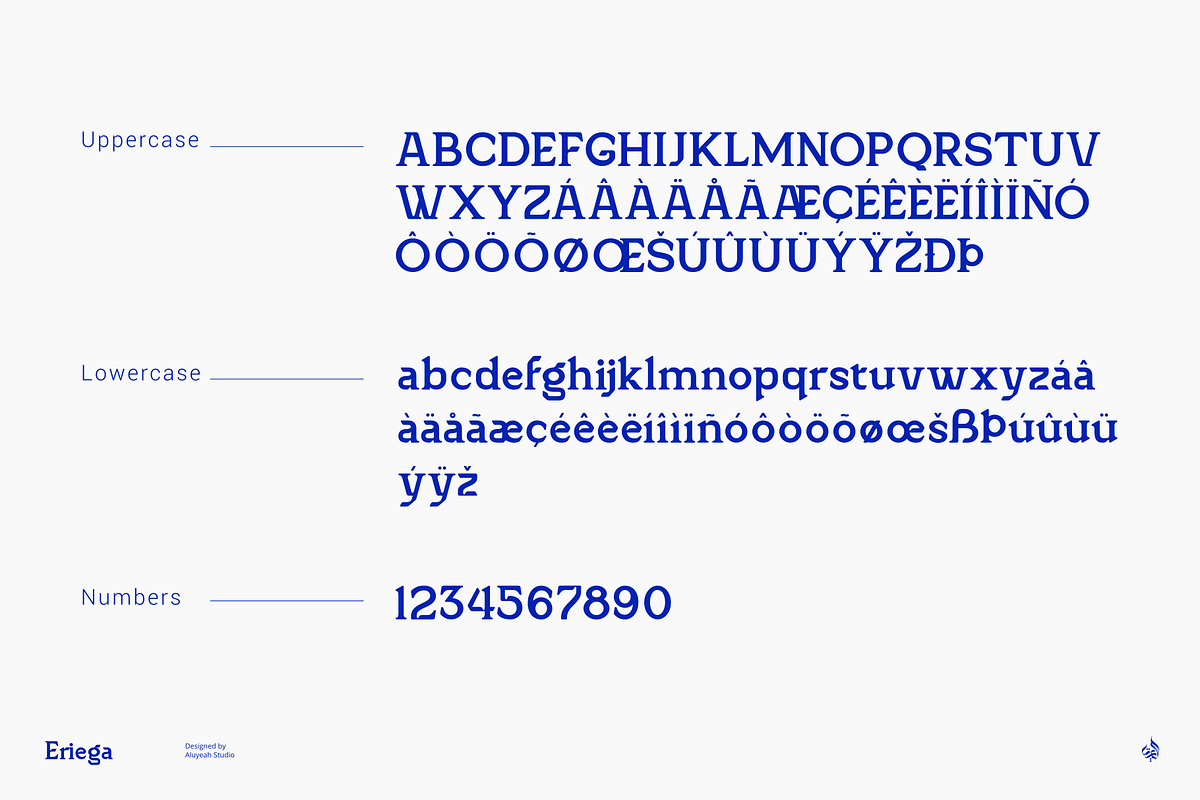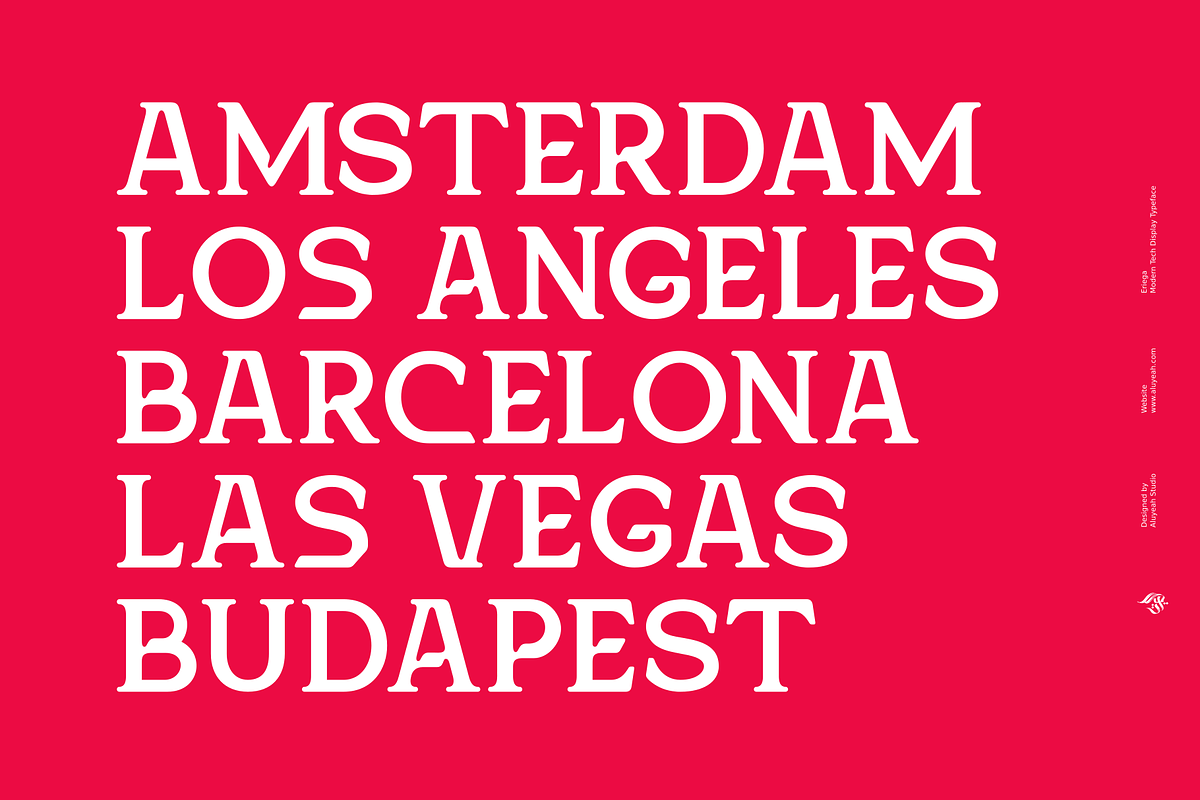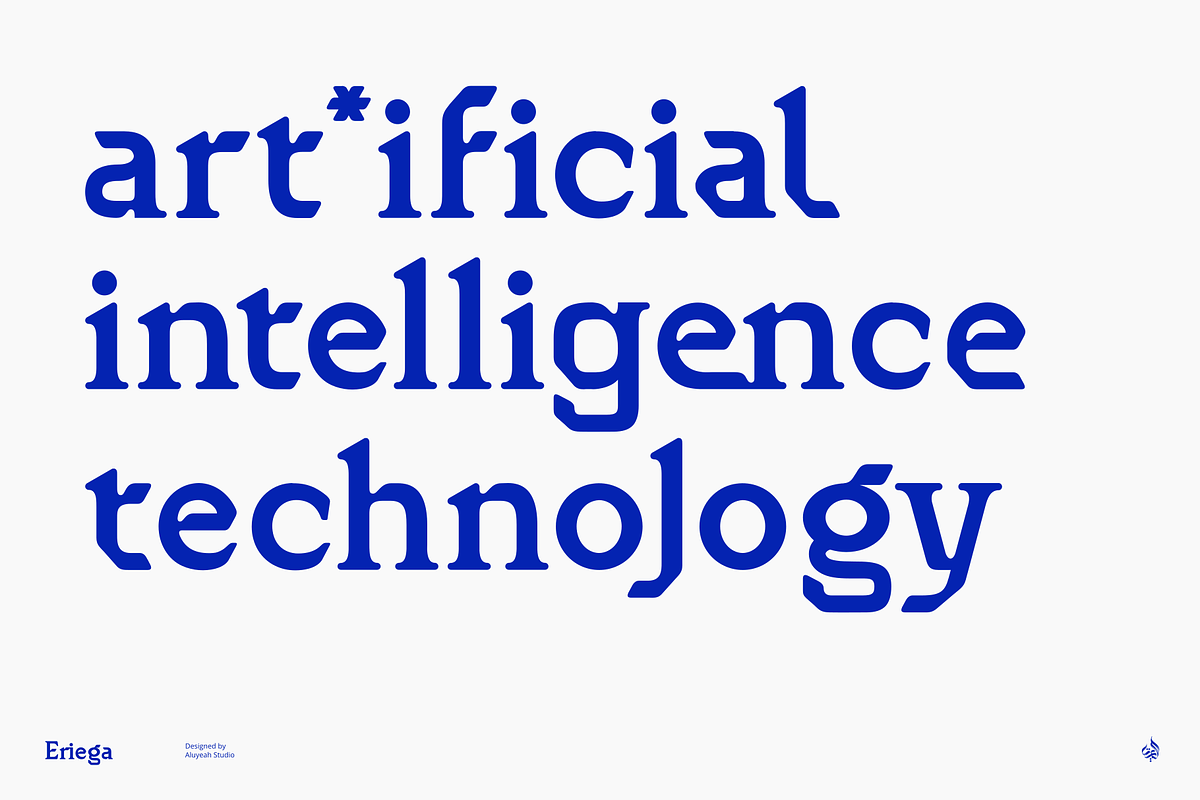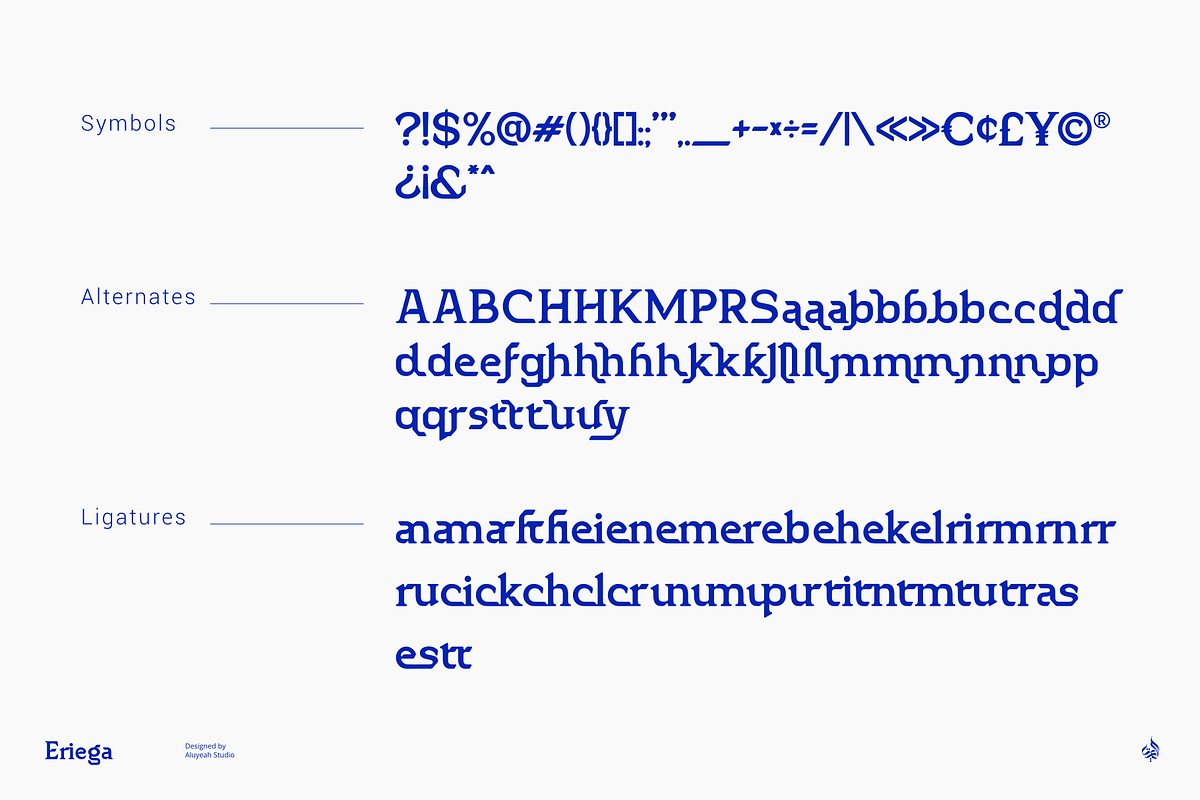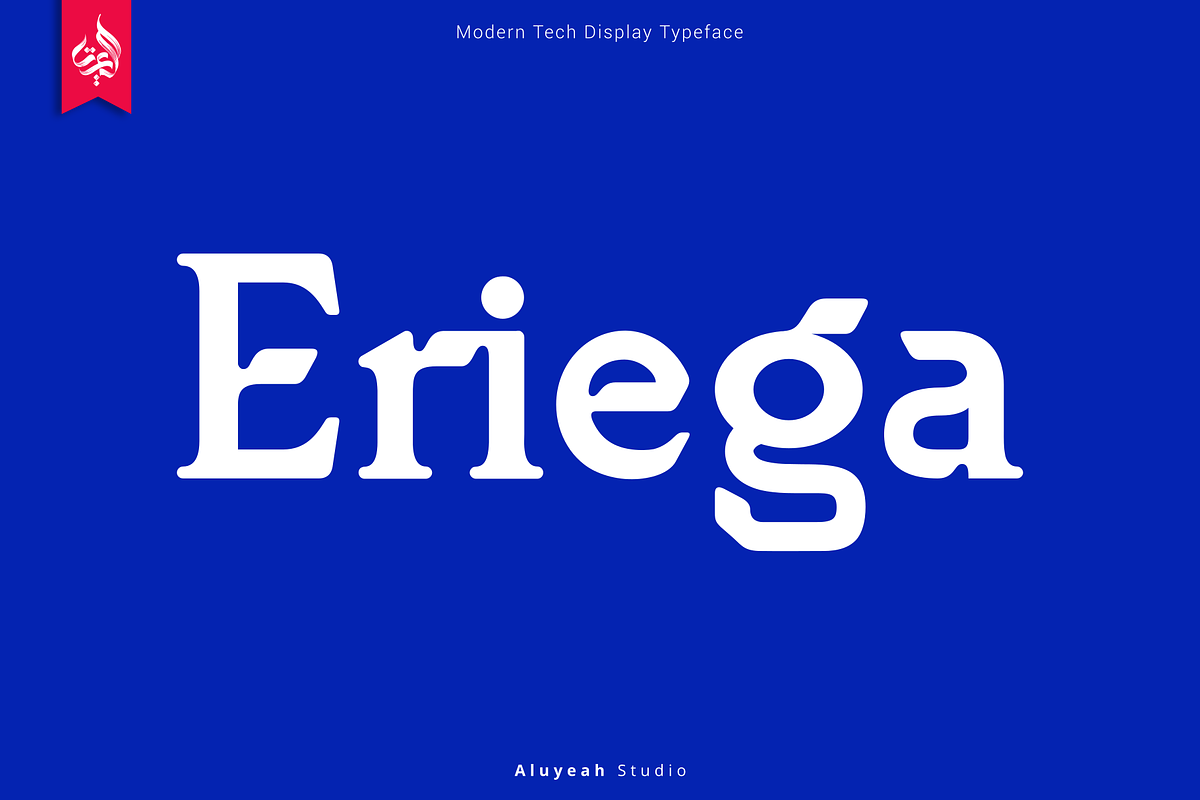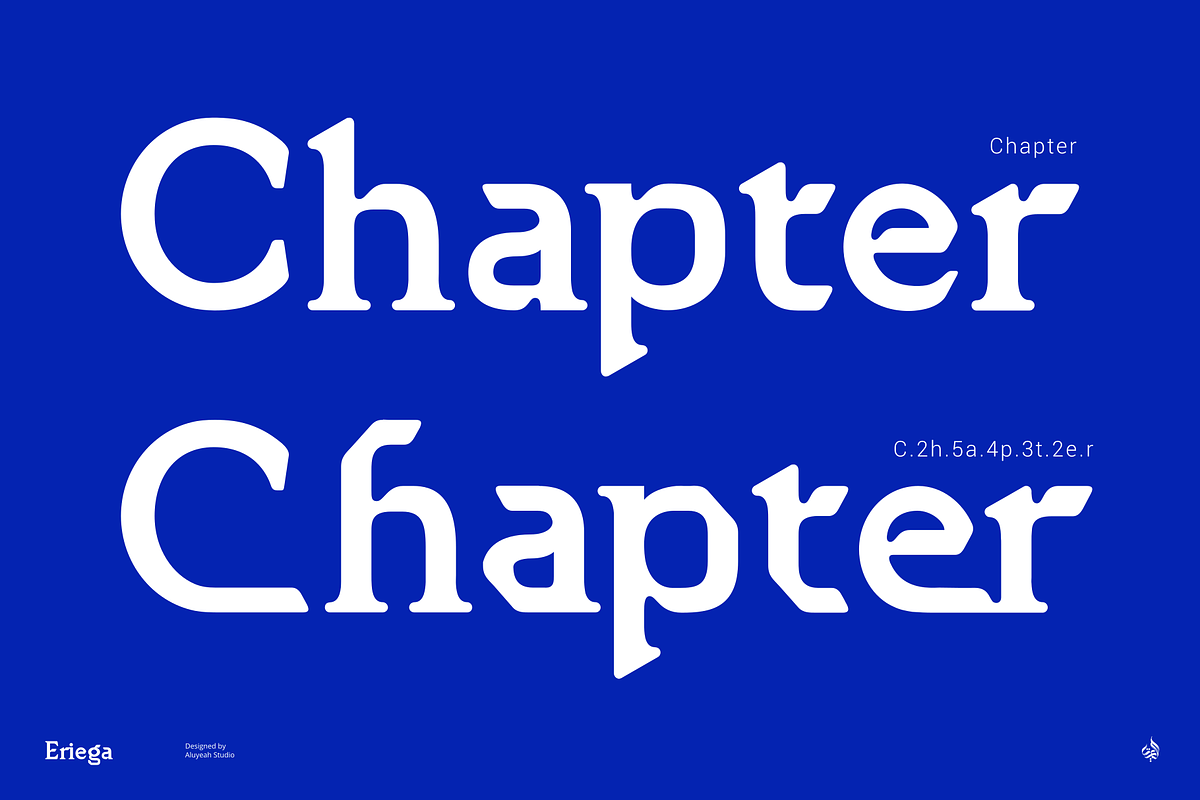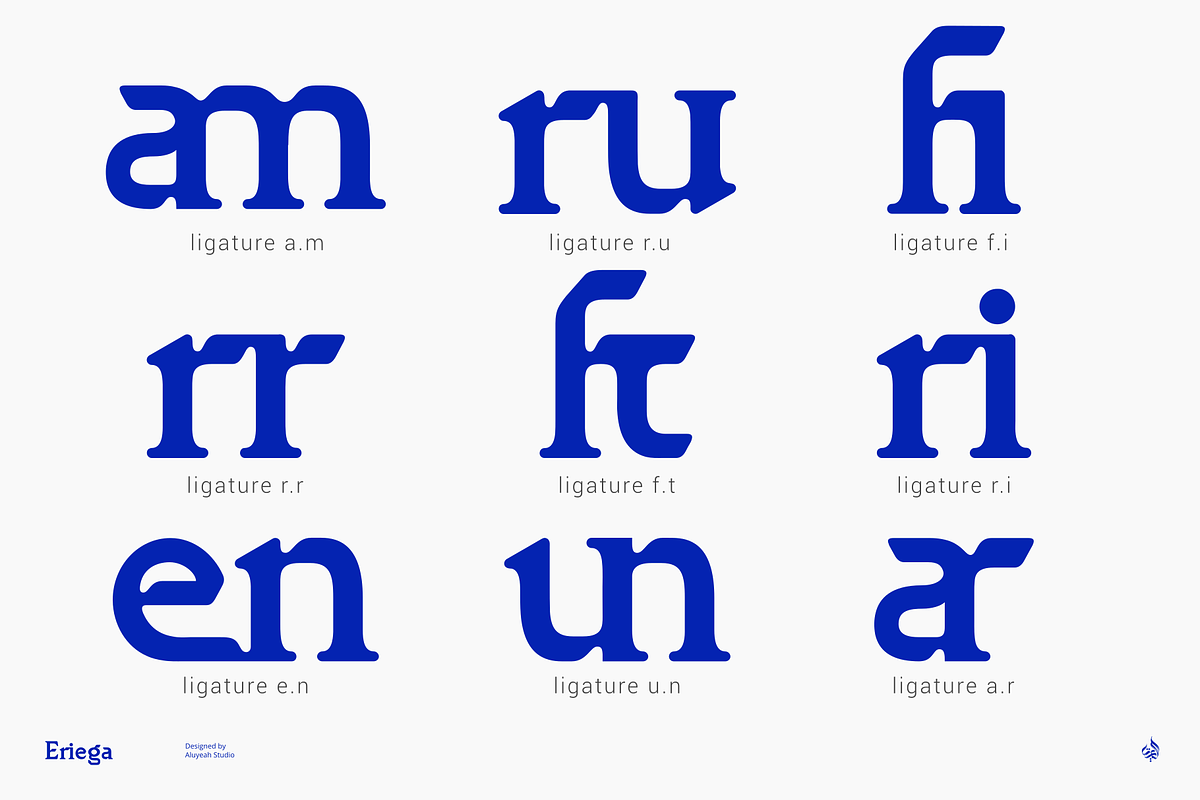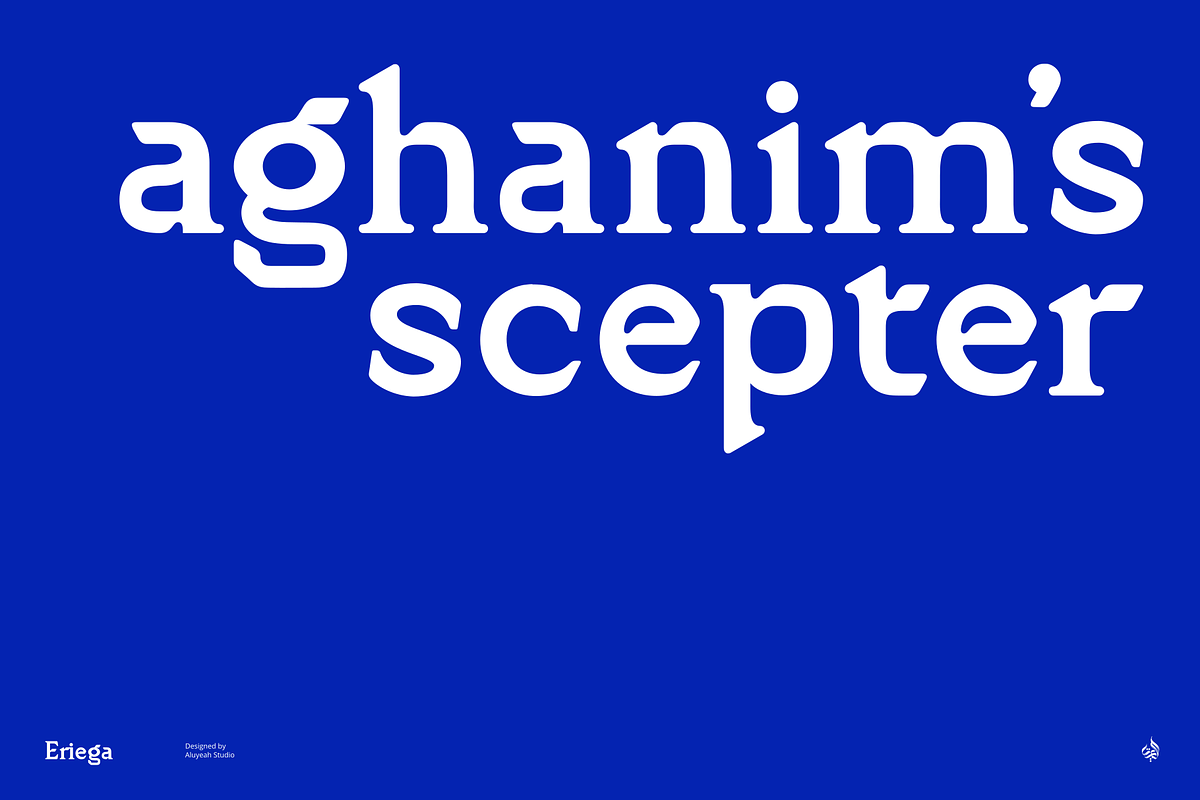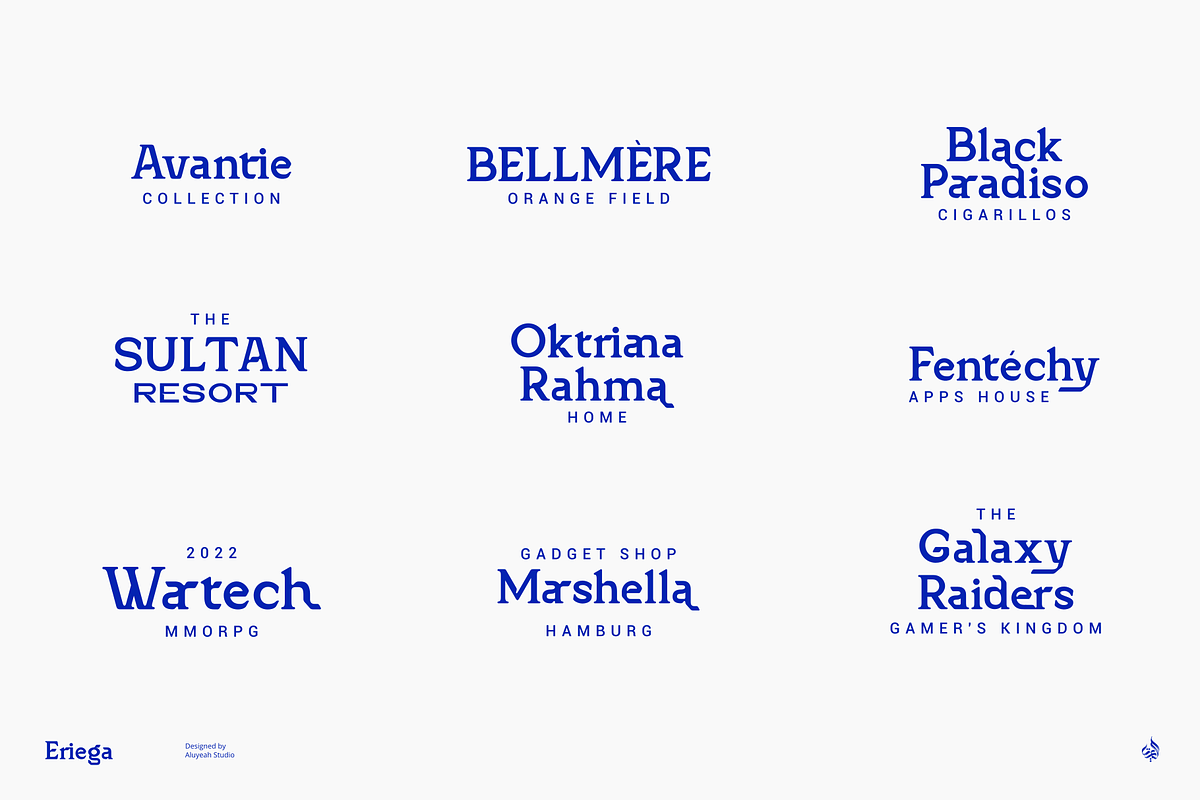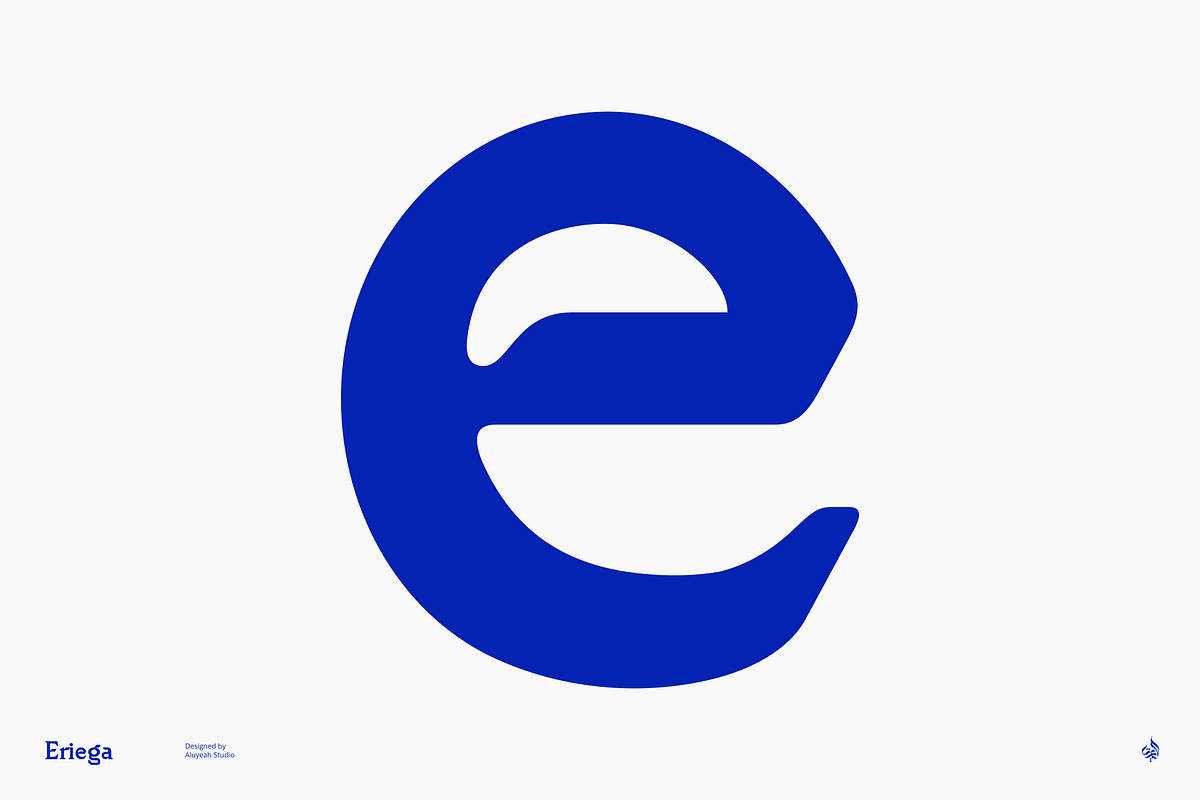
Eriega | Modern Tech Display
Inspired by the many emerging tech startups, we wanted to create a font that can play to give the impression of technology but still fit into various design areas. Eriega gives the impression of modern and technology as a movement for change for the better.
Eriega is a modern tech display typeface that unites the enthusiasm and technology. A simple, modern, futuristic font that can be applied to many areas of design. Coming with 90+ stunning and super easy to use alternates and ligatures.
Very suitable for apps, magazine, headline, website, ads, product package and all type of design project you have.
- Super Easy to Use alternates - It's OpenType support but you can easily call alternates character using special combination like A.2 S.2 a.r r.i etc.
To get results like the preview just type Er.iega